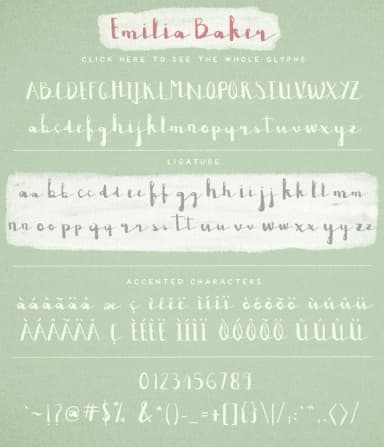
About Emilia Baker Font
Emilia Baker Font by Blue Robin Design Shop is a flowing script typeface that merges traditional hand-lettering techniques with refined contemporary design sensibilities. The font's organic curves and natural letterform spacing create an authentic handwritten feel that reads with true clarity at any size, making it equally at home as a striking headline or sophisticated body text within polished design work.
This typeface excels in refined creative applications, from wedding invitation suites and personalized anniversary stationery to custom gift packaging and upscale product labels for luxury markets. It's also well-suited for high-end brand identity work, hand-lettered social media content, and custom event signage where a personal yet professional aesthetic significantly strengthens your overall message and brand voice. The script brings genuine warmth and character to any branding effort that values authentic craftsmanship over mass-produced design solutions.
Emilia Baker Font is a script font that shines as a display or heading face. Pair it with a clean sans-serif or serif font for body text β the contrast creates a clear hierarchy while the two styles stay balanced and easy to read.